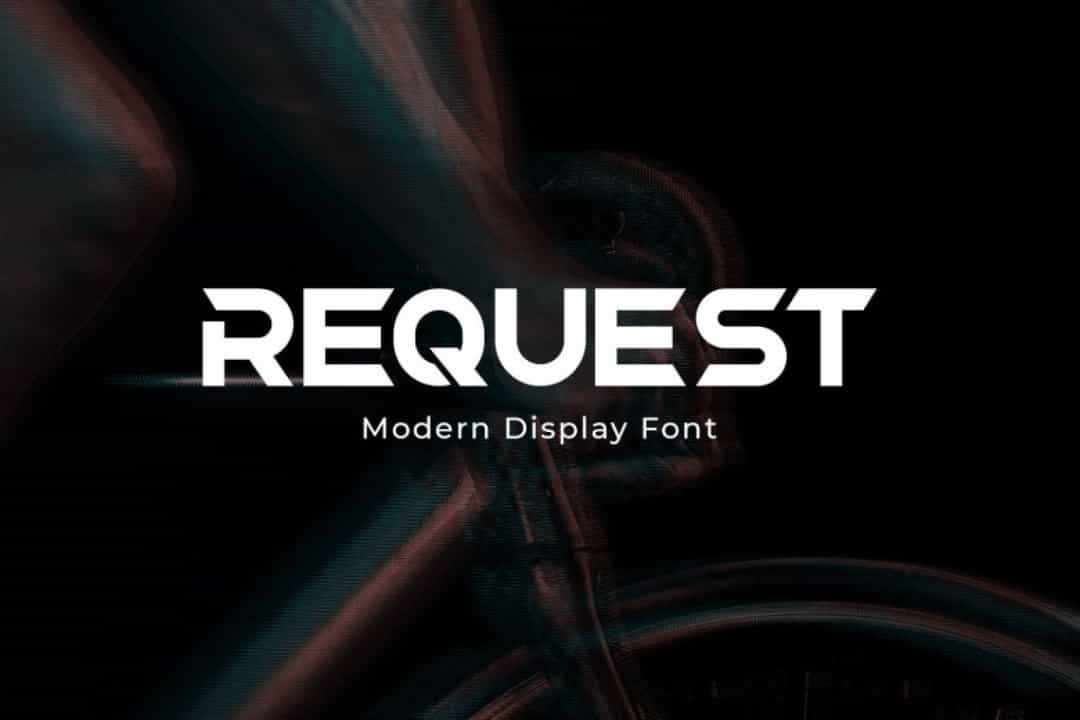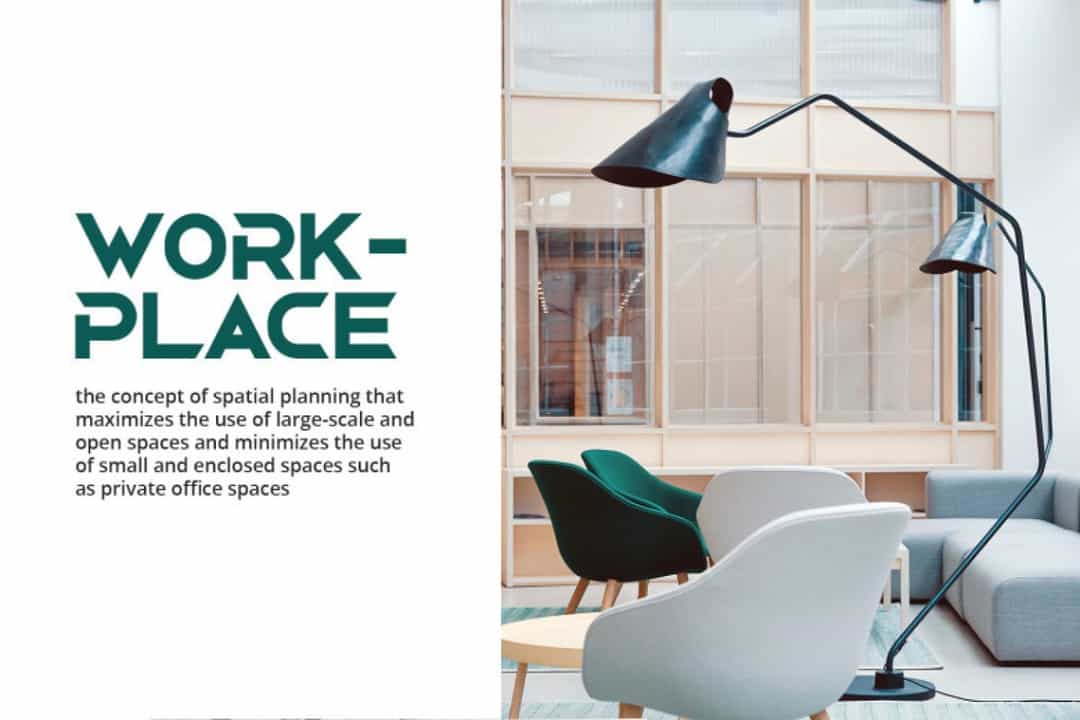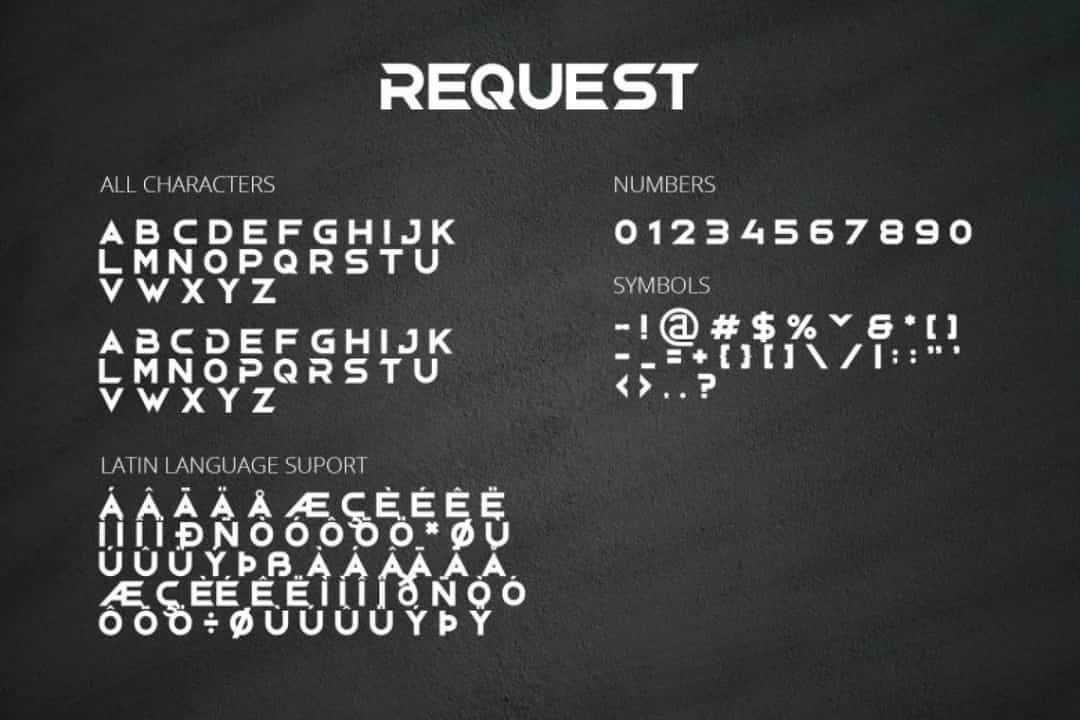
Request is an eye-catching realist display typeface, celebrating abstract shapes in all their variety. The font stands out in many settings; from blogger preview logotypes and fashion web banners to promoting musical acts or restaurants; its versatility makes Request an ideal addition.